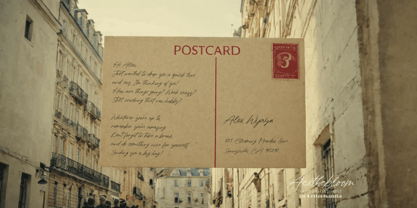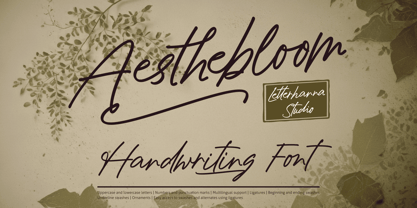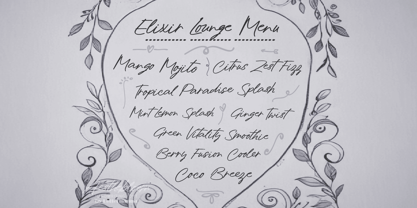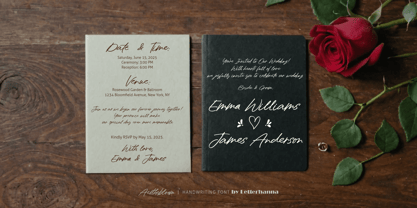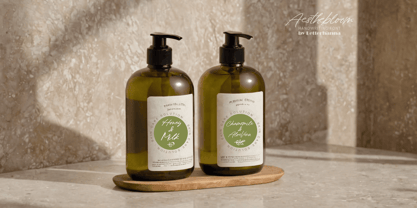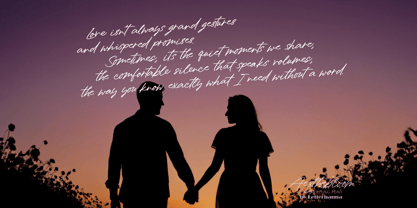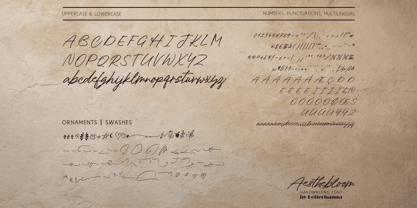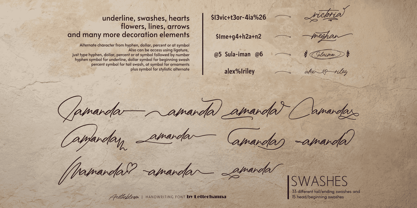
Aesthebloom
by Letterhanna Studio
The Aesthebloom Font Family was designed by Rinaldo Hasibuan and published by Letterhanna Studio. Aesthebloom contains 1 styles. More about this family
Introducing Aesthebloom Handwriting Font, a beautifully crafted script font that embodies elegance and artistic charm. Designed with a natural, flowing style, Aesthebloom captures the essence of hand-drawn lettering with smooth curves and graceful strokes. Perfect for branding, wedding invitations, social media graphics, and creative projects, this font brings warmth and sophistication to any design.
Aesthebloom Handwriting Font offers an extensive collection of stylistic alternates, swashes, and ligatures, allowing you to personalize your text with unique and expressive details. Whether you're looking for a modern chic vibe or a timeless calligraphic touch, this font adapts effortlessly to your creative vision. Elevate your typography with Aesthebloom and make every word a work of art.
Designers: Rinaldo Hasibuan
Foundry: Letterhanna Studio